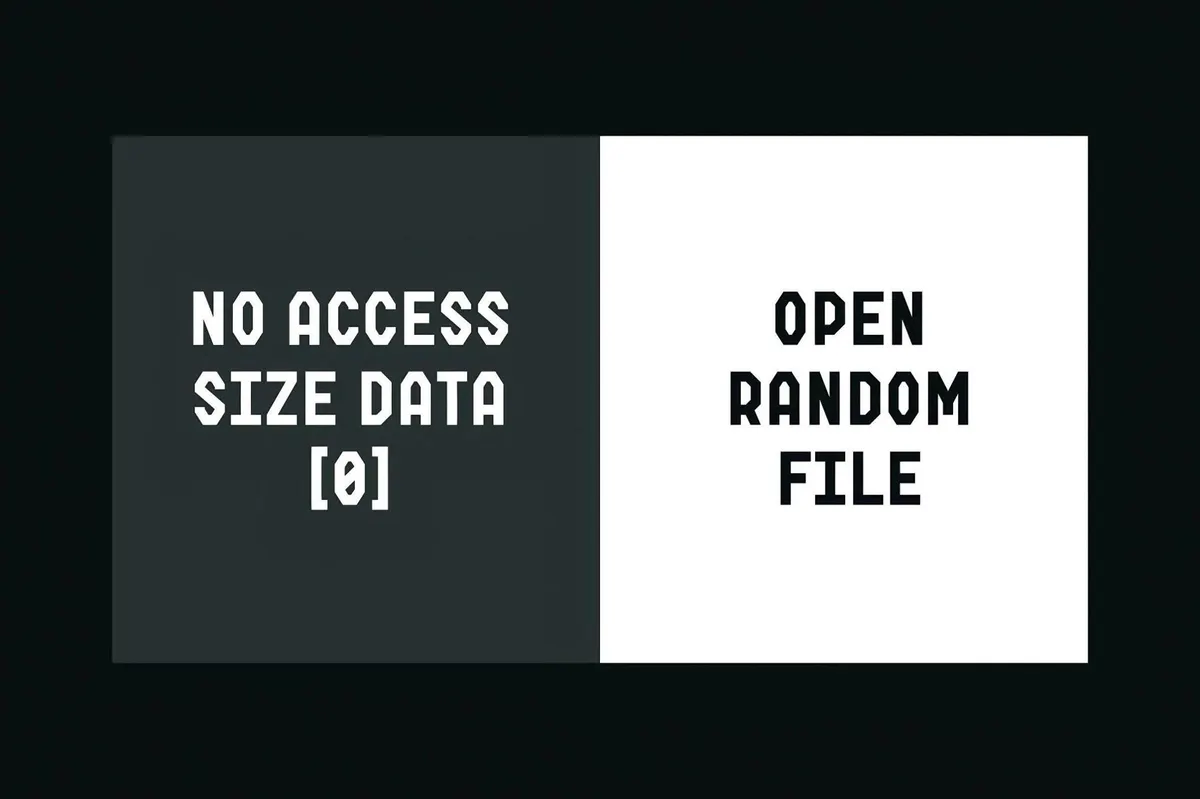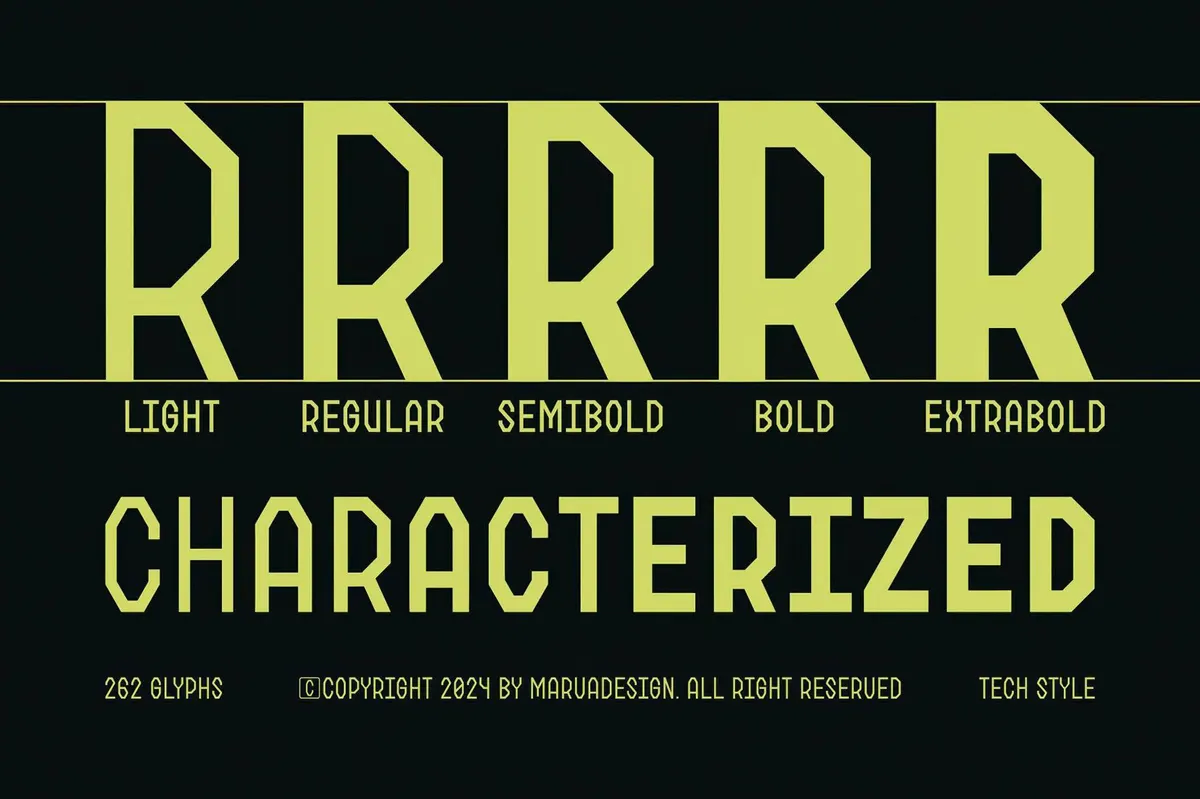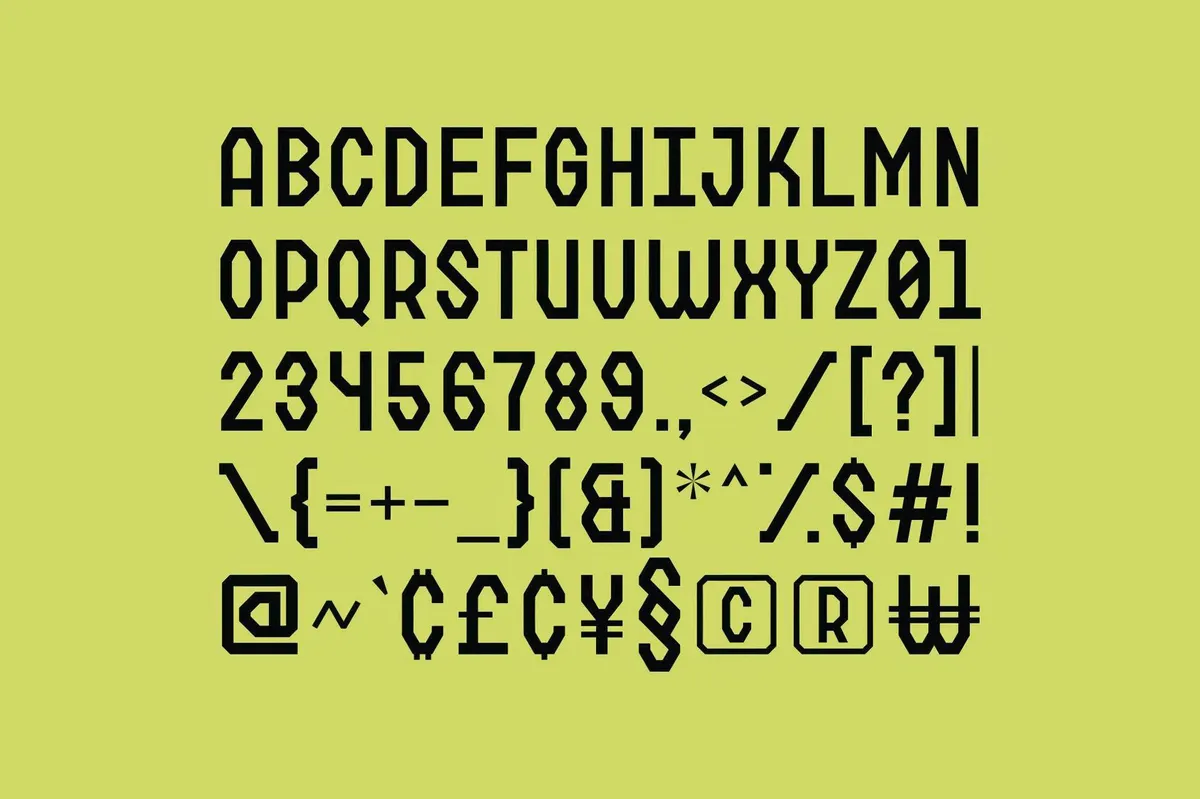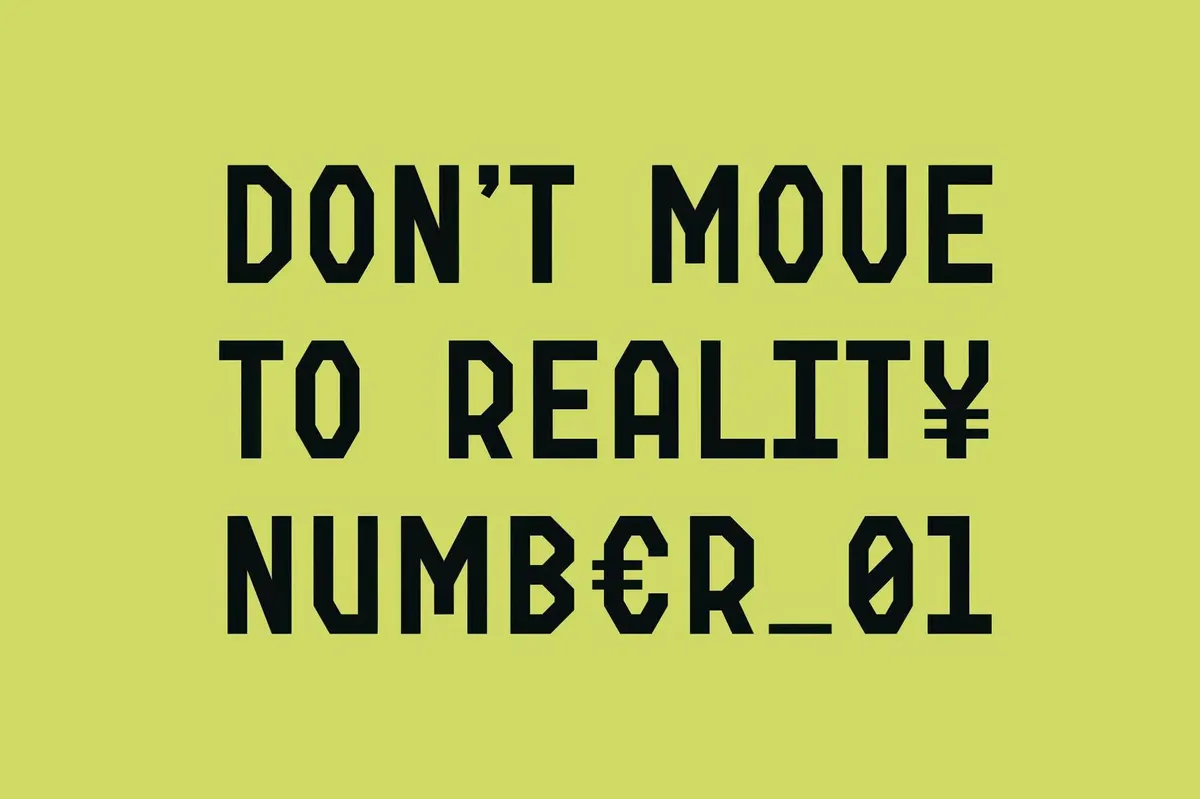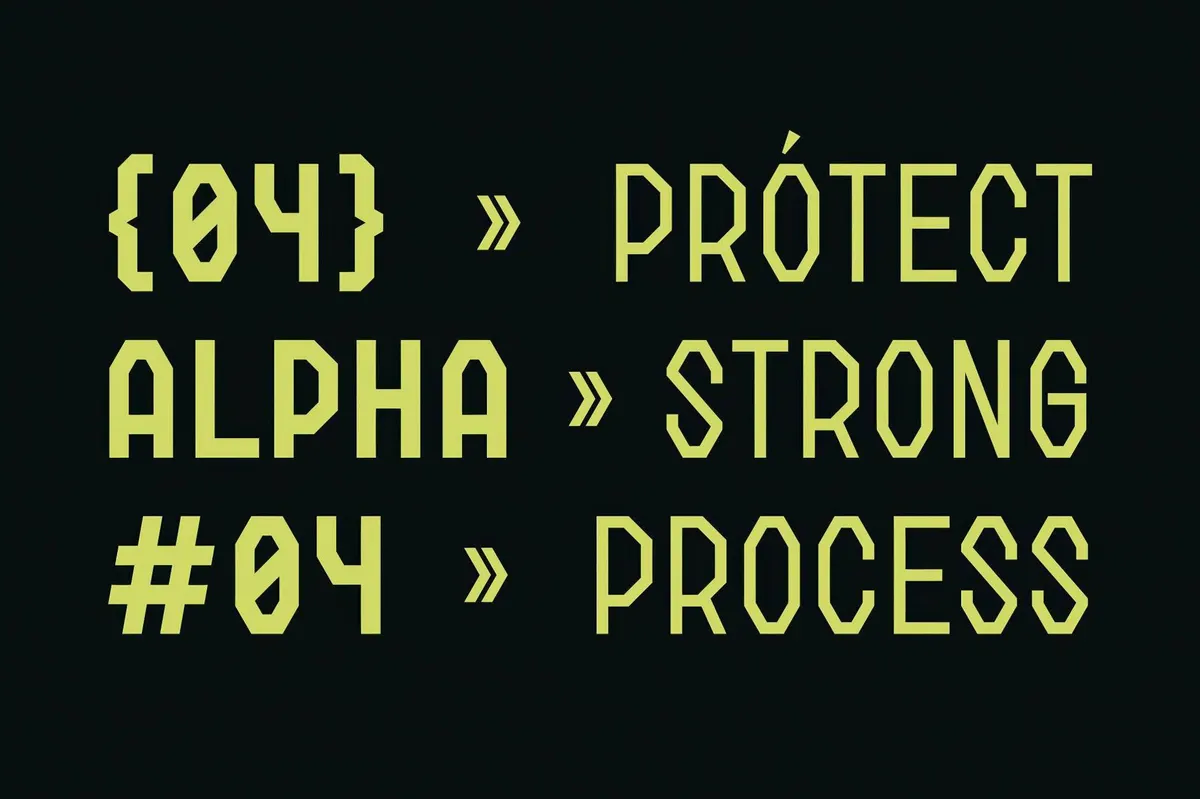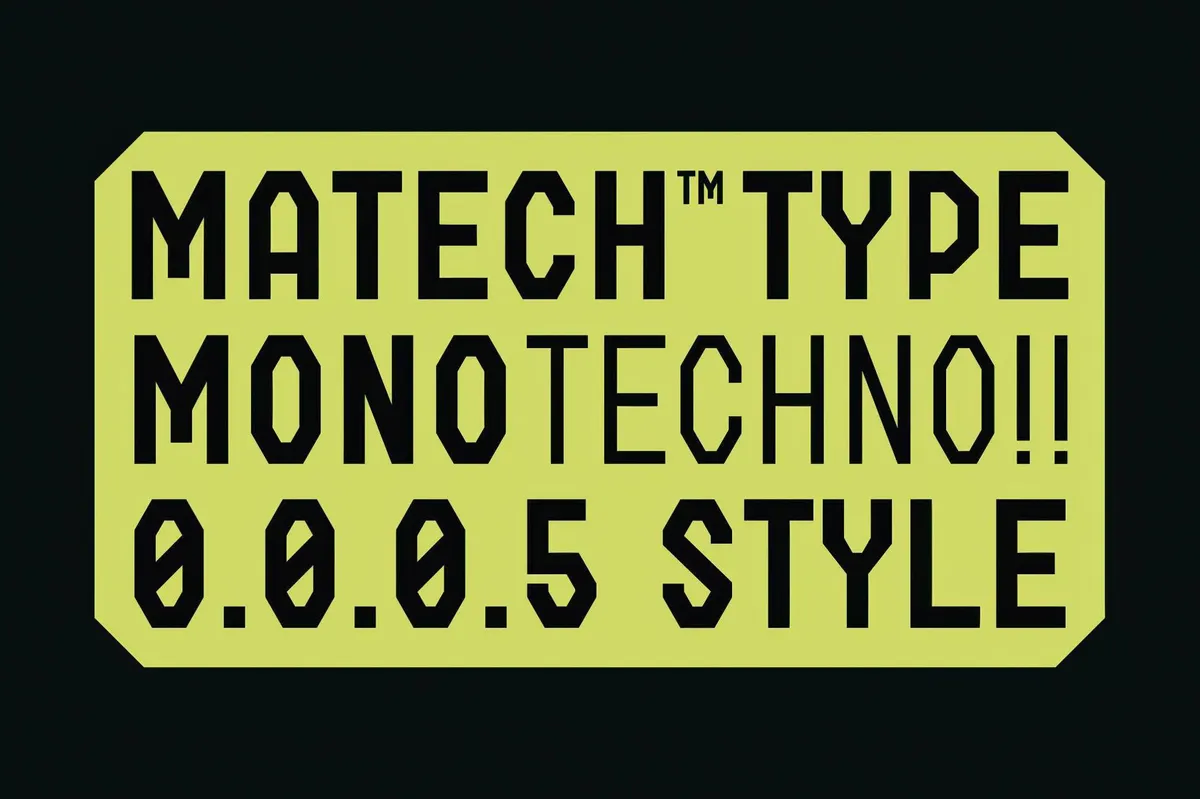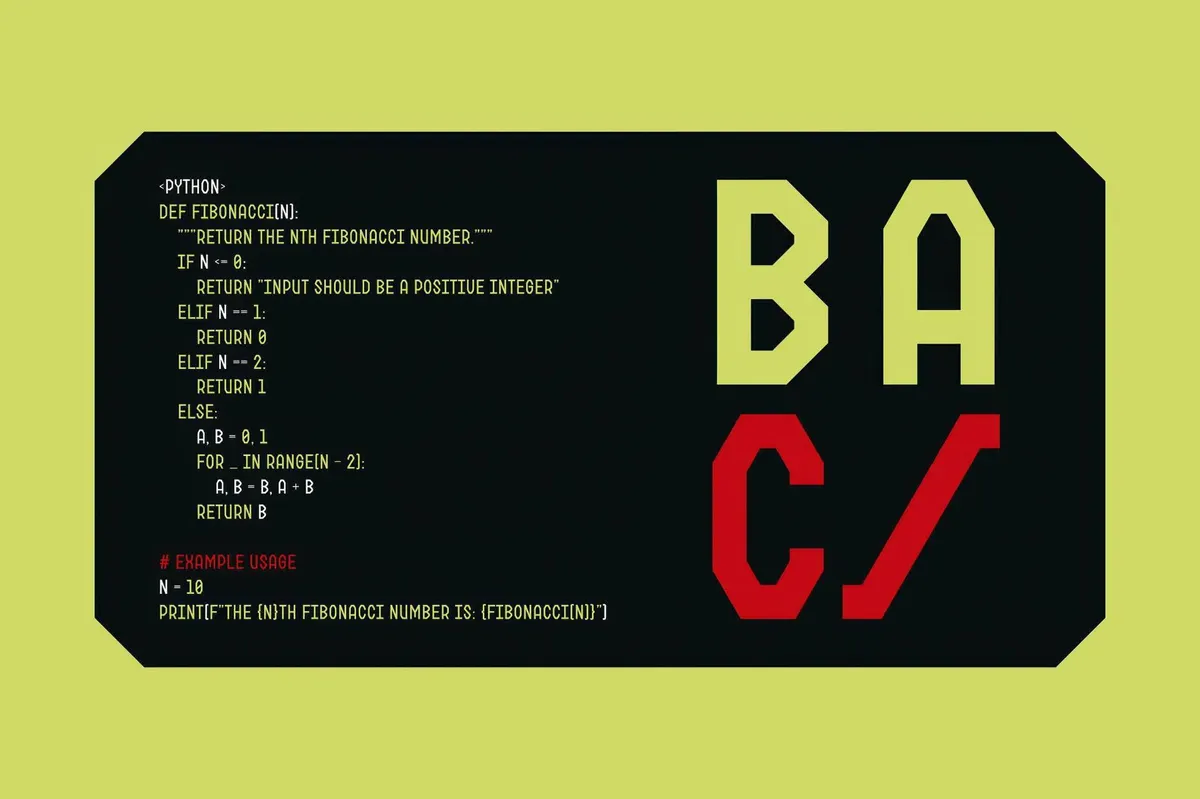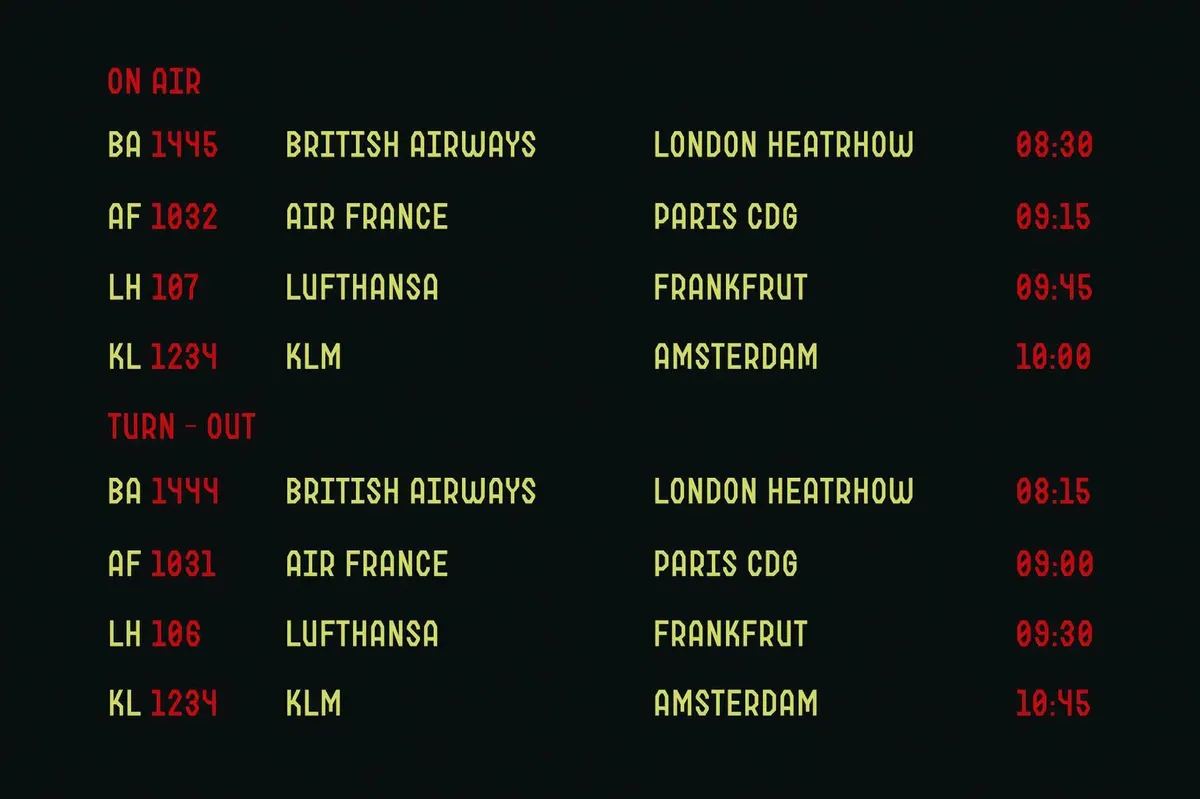
Matech Monospace Techno Font
Matech font is built like a machine: it's precise, sharp, and focused on making the highest performance possible. Every character is cut (yep, that’s the right word) with intention, delivering a sleek, modular look that fits seamlessly into the worlds of tech, gaming, and digital design. Includes punctuation, numerals, and multilingual support — because the future doesn’t have borders. From Light to ExtraBold, each of the 5 weights serves a purpose. Coding, branding, or crafting an interface straight out of a cyberpunk dream — Matech brings the structure and intensity you need.